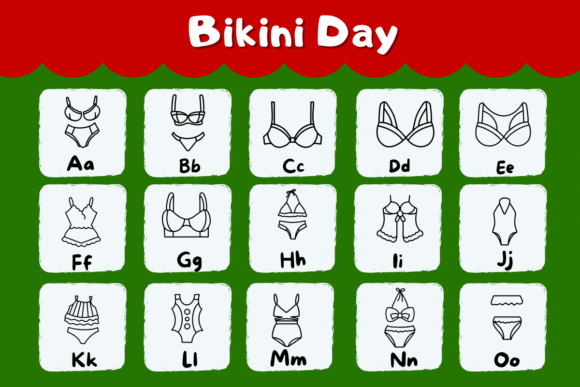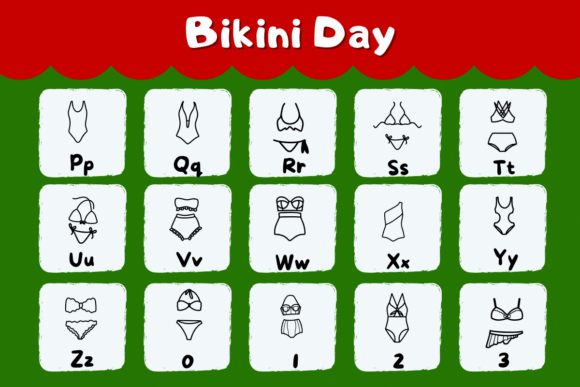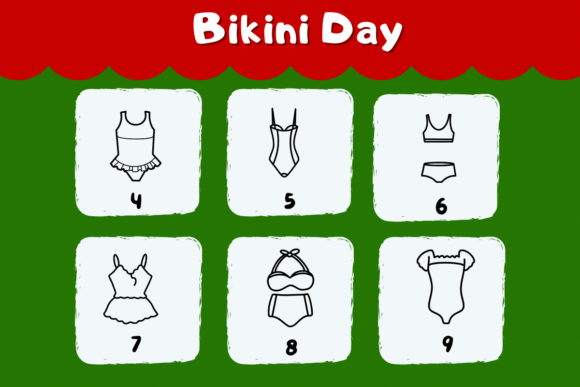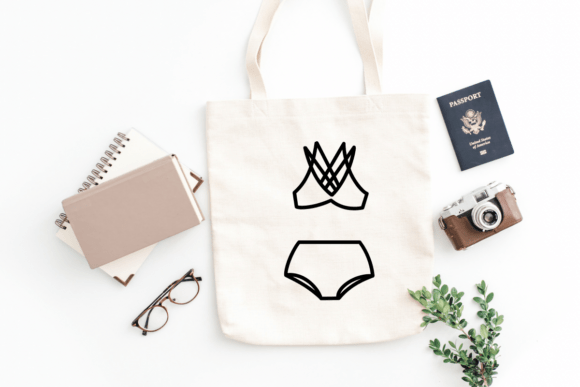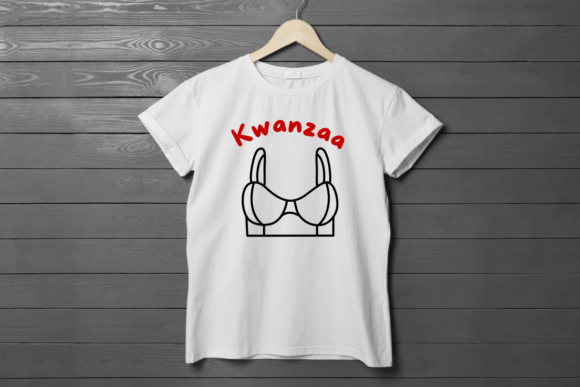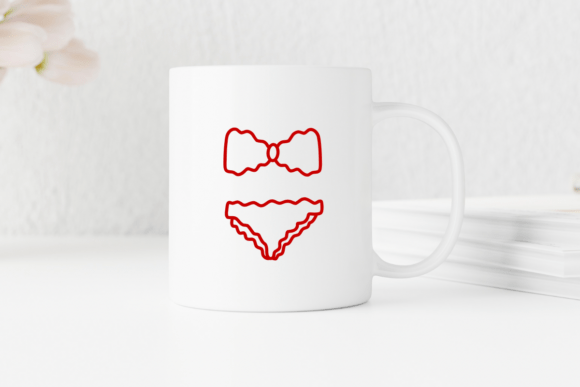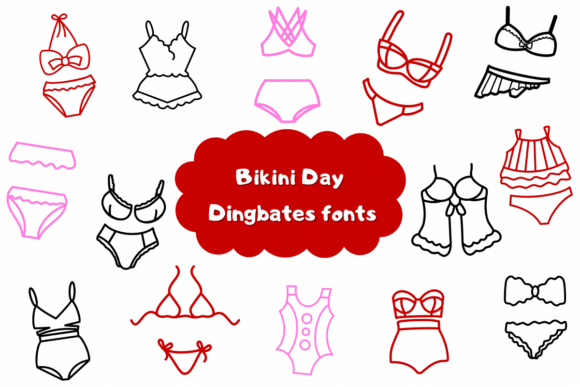
Introducing Bikini Day Font: Your Ultimate Companion for Summer-Inspired Creations
Are you ready to infuse your summer projects with a dash of playfulness and style? Look no further than the Bikini Day Font, a delightful dingbat typeface that embodies the carefree spirit of the season. This charming collection of hand-drawn icons is meticulously crafted to bring a touch of sophistication and whimsy to your designs, making it the perfect choice for a wide range of creative endeavors.
The Essence of Bikini Day Font
Bikini Day Font is a thoughtfully curated assortment of swimwear and lingerie icons, distinguished by their rhythmic, clean line-art silhouettes. This unique design approach seamlessly blends fashion illustration with modern graphic iconography, yielding a distinctive aesthetic that is both stylish and breezy. The font’s charming personality and sunny disposition make it an excellent fit for projects that require a dash of summer flair.
Ideal Applications for Bikini Day Font
With its versatile and adaptable design, Bikini Day Font lends itself to a variety of applications, including:
• Independent beachwear brand identities: Establish a strong visual presence for your beachwear brand with custom logos, social media graphics, and promotional materials that exude a carefree, summer vibe.
• Boutique summer sale promotions: Create eye-catching advertisements, flyers, and social media posts that drive sales and excitement for your summer clearance events.
• Personalized vacation planners: Add a touch of personality to custom planners, journals, and travel guides that help your audience make the most of their summer getaways.
• High-impact shoreline-and-chic social media content: Elevate your social media presence with engaging graphics, Instagram stories, and Facebook posts that showcase your brand’s stylish and adventurous side.
Key Features of Bikini Day Font
The Bikini Day Font collection boasts an impressive array of features that make it an indispensable asset for designers and crafters:
• Hand-drawn icons: Each icon is meticulously crafted with attention to detail, ensuring a unique and authentic aesthetic.
• Rhythmic, clean line-art silhouettes: The font’s distinctive design approach yields a cohesive and stylish visual language.
• Swimwear-and-lingerie themes: A diverse range of icons inspired by fashion illustration and modern graphic iconography.
• Scalability: The font is optimized for use in various design applications, from small social media graphics to large-scale promotional materials.
Tips for Getting the Most Out of Bikini Day Font
To maximize the creative potential of Bikini Day Font, consider the following design tips:
• Mix and match icons: Combine different icons to create visually appealing compositions that tell a story or convey a message.
• Experiment with colors: Play with a range of colors and gradients to inject personality and depth into your designs.
• Pair with complementary fonts: Use Bikini Day Font in conjunction with other fonts to create a harmonious and engaging visual identity.
Bikini Day Font is a captivating dingbat typeface that embodies the carefree spirit of summer. With its charming aesthetic, breezy personality, and versatile design, this font collection is poised to become your go-to companion for a wide range of creative projects. Whether you’re a designer, crafter, or social media enthusiast, Bikini Day Font offers a world of possibilities for infusing your work with a dash of summer style and whimsy.